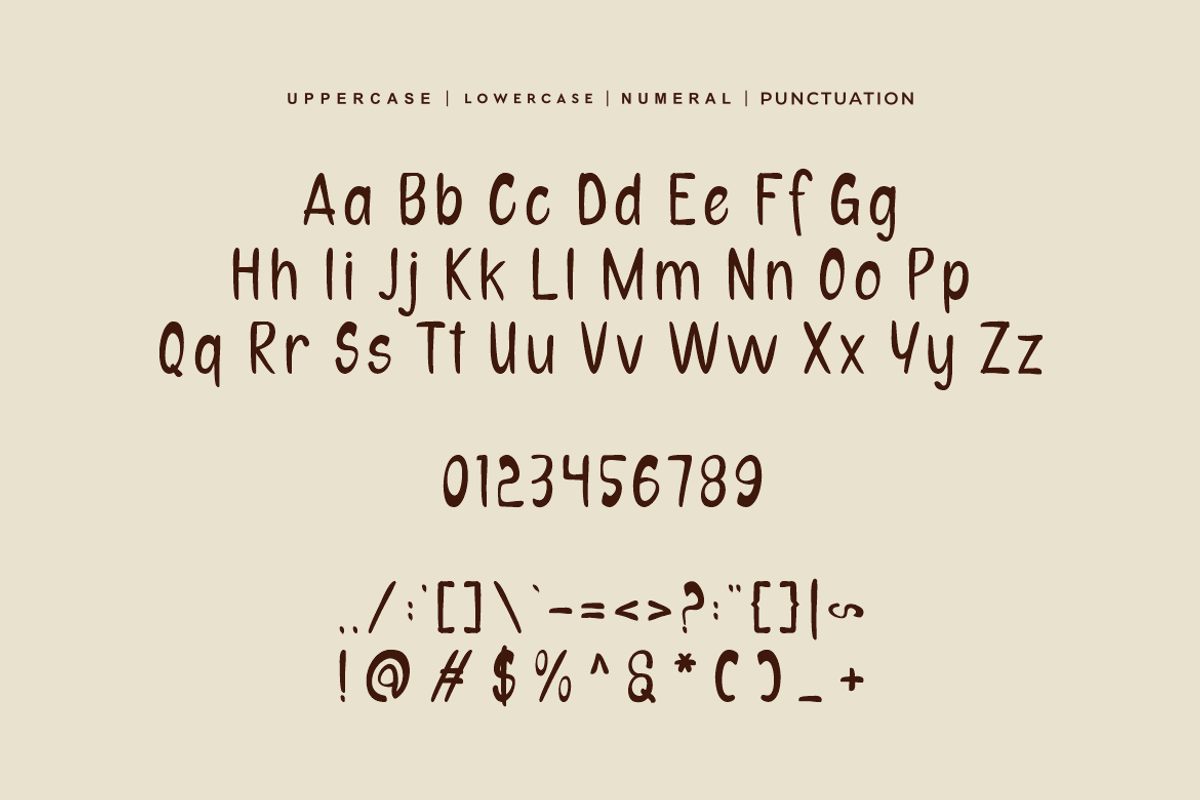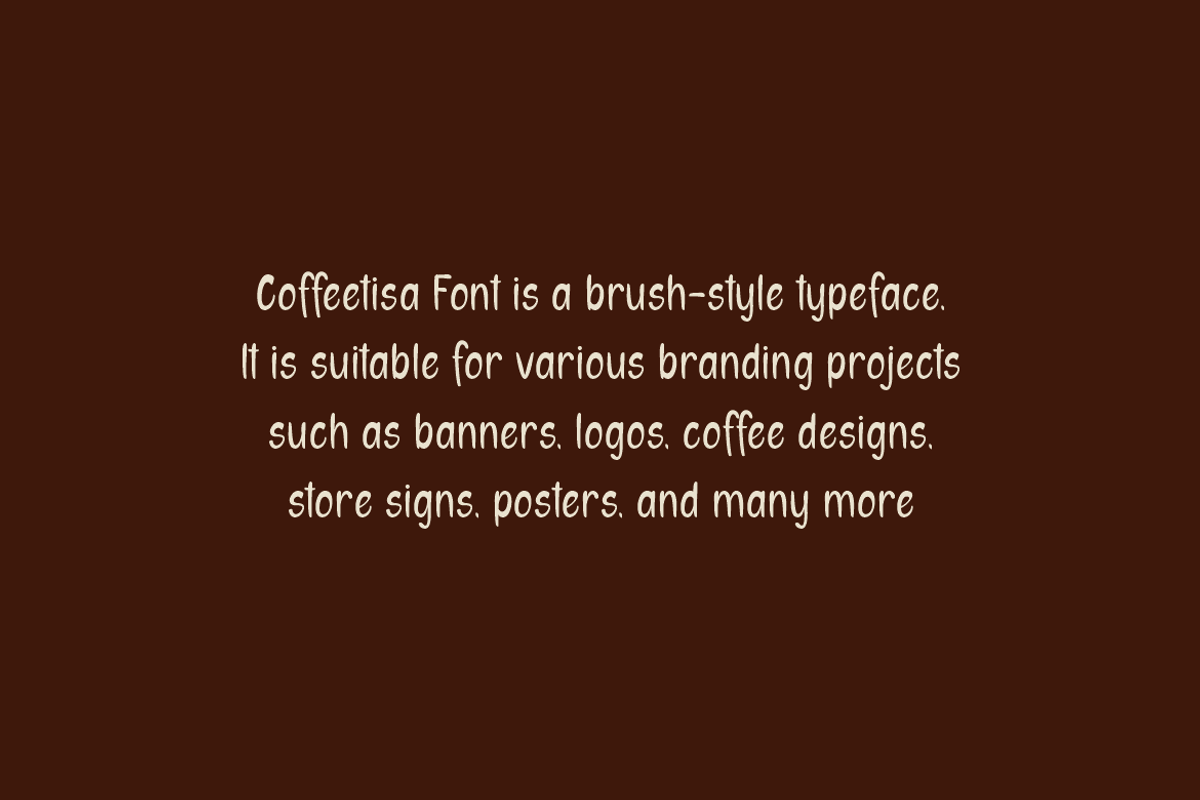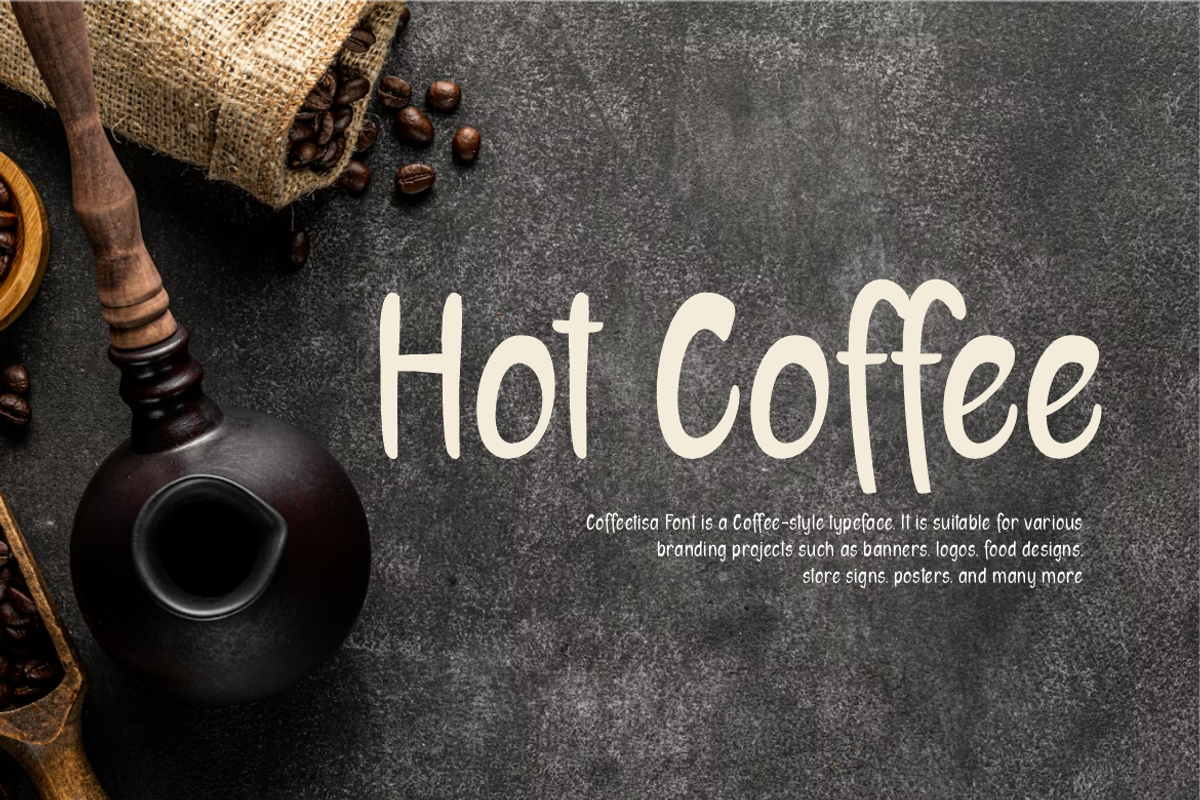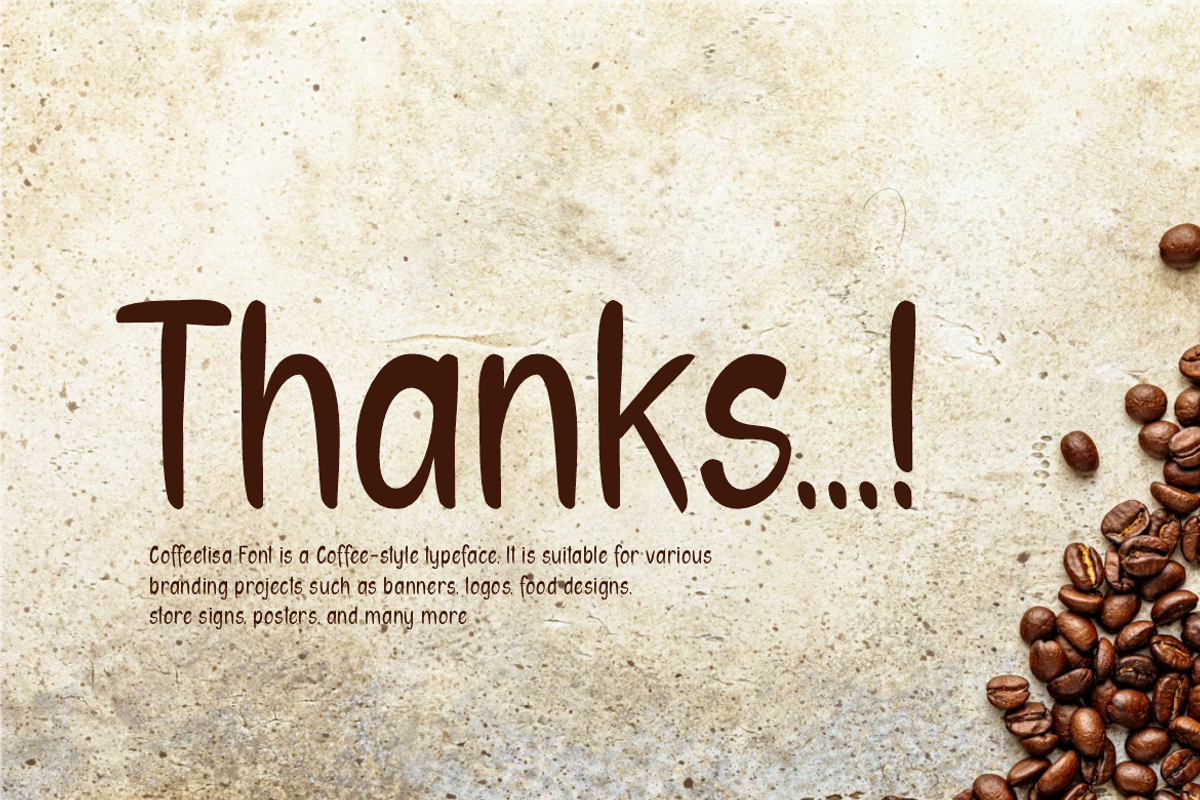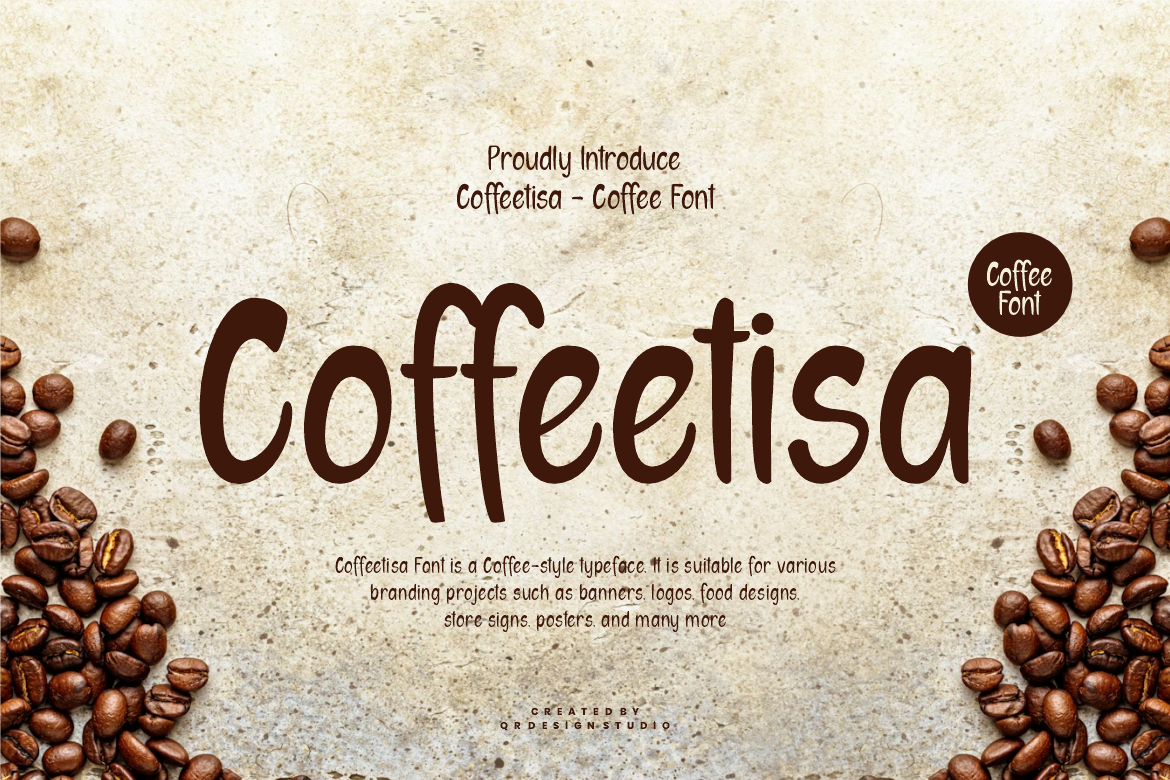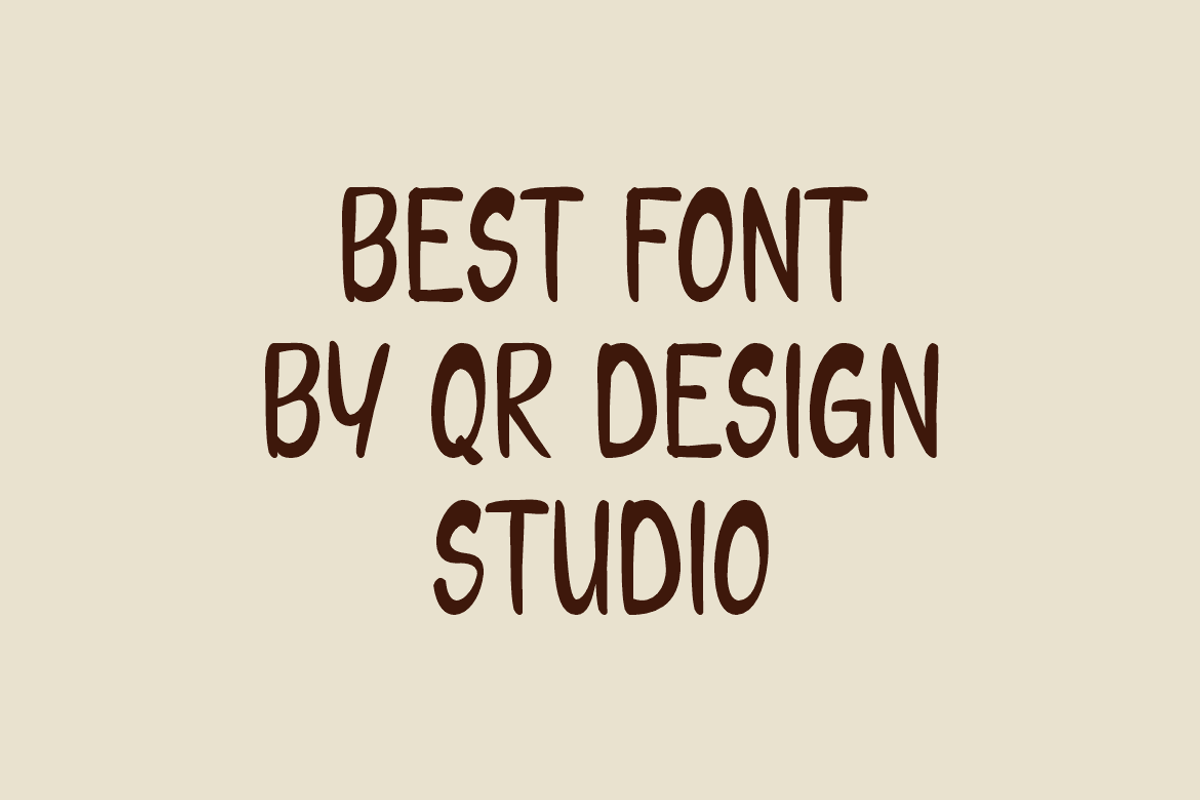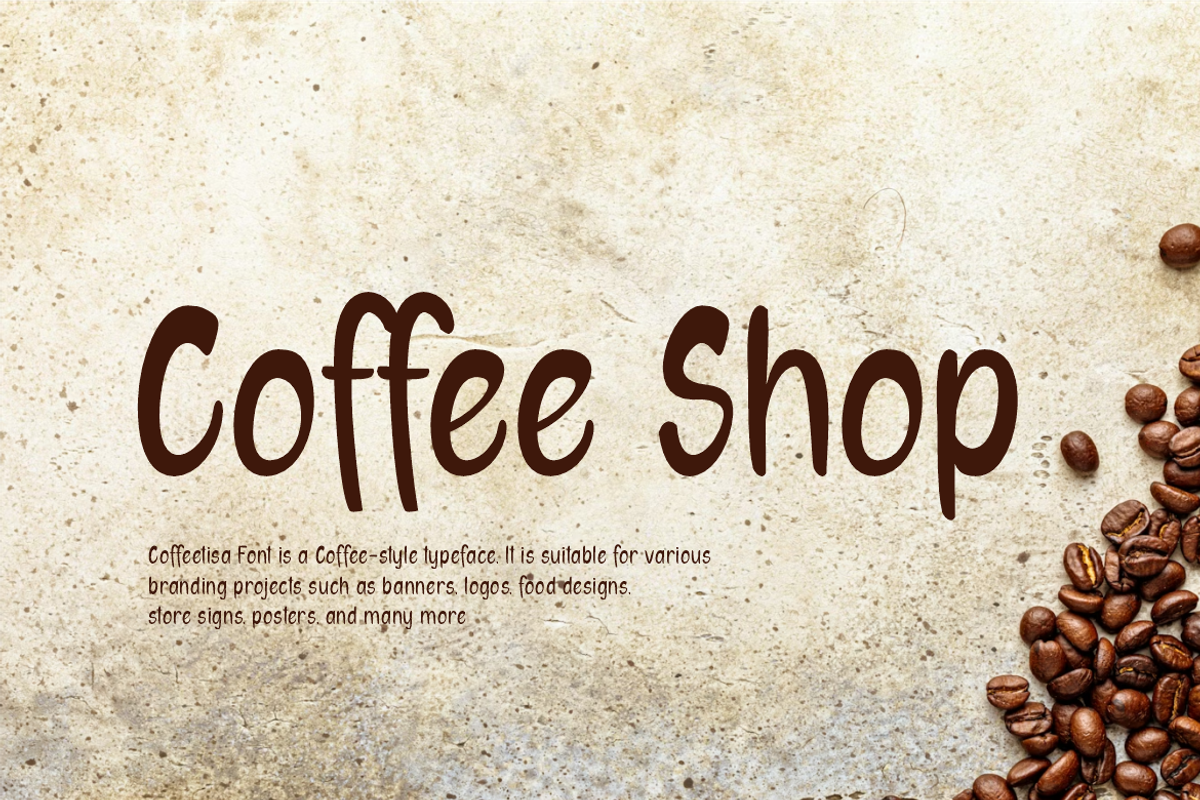
Coffeetisa - Coffee Shop Font
Coffeetisa Font is a best and authentic display typeface. It’s perfect for various branding projects such as logos, coffee shop designs, and more. This font stands out beautifully in a wide range of contexts.